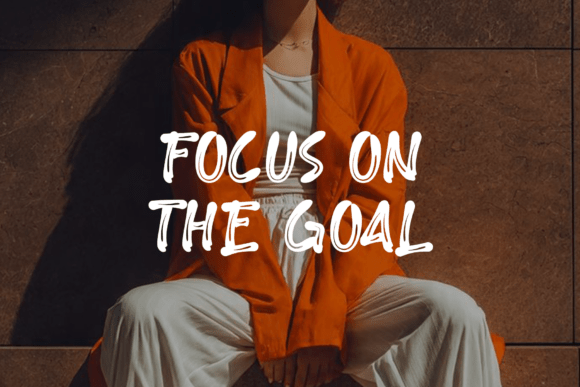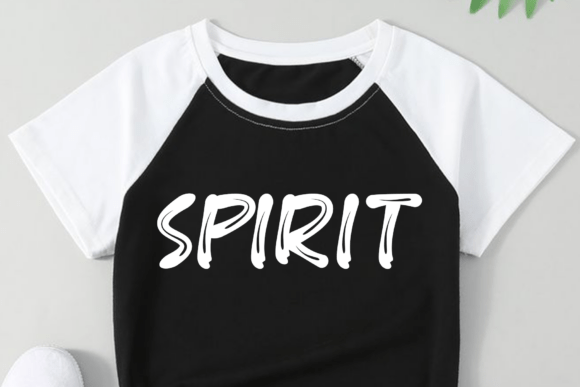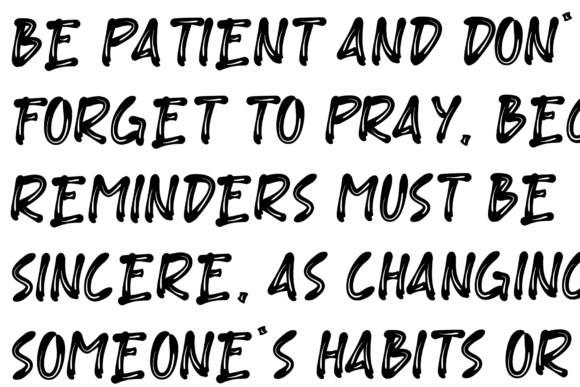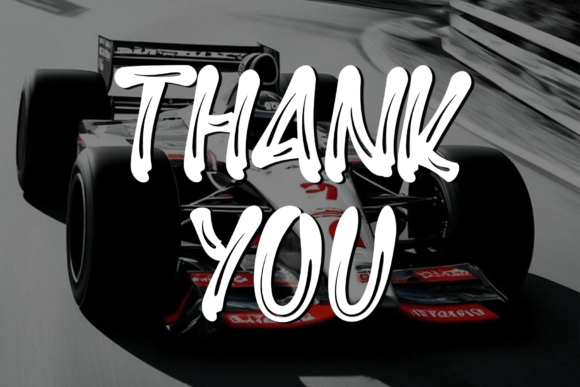
Introduction to Quick Racing Font
Have you ever found yourself pouring over a blank canvas, waiting for the perfect design to materialize? As a designer, I’m sure you’ve experienced that moment of creative frustration, when nothing seems to be working and your project is stuck in limbo. That’s where the right design resource can be a game-changer. Enter the Quick Racing Font, a stunning handwritten script that’s sure to elevate your creative project to the next level.
With its sleek, high-contrast strokes and fluid ligatures, this font is perfect for designers who want to add a touch of sophistication and elegance to their work. Whether you’re creating a dramatic social media header, a luxurious event invitation, or a cinematic book cover, the Quick Racing Font is an exceptional choice. And the best part? It’s available for free download, making it an invaluable resource for designers on a budget.
Key Features of Quick Racing Font
- High-quality design resource ideal for creative projects requiring a bold, energetic feel.
- Unique, custom-designed font featuring a transparent background, allowing for seamless integration into any design.
- Designed with a focus on readability and legibility, making it perfect for use in a variety of applications.
- Unique characteristics include a dynamic, racing-inspired aesthetic and a range of customizable styles.
Honest Review: Quick Racing Font
I recently stumbled upon the Quick Racing Font, and I must say it’s a great addition to any design project. As a designer, I appreciate high-quality fonts that can elevate my creative work.
- High-quality design: The font looks sharp and well-crafted, making it perfect for any project that requires a premium feel.
- Transparent background: This feature is super useful for designers who want to easily integrate the font into their design without worrying about background distractions.
- Limited character set: Unfortunately, the font only includes a limited character set, which may not be ideal for projects that require a wide range of characters.
- Not suitable for complex designs: The font may not be the best choice for complex designs that require a lot of customization and fine-tuning.
Overall, I think the Quick Racing Font is a solid design resource that can add a touch of sophistication to any project. While it has its limitations, it’s a great option for designers who want a high-quality font without breaking the bank.
Tips for Getting the Most Out of Quick Racing Font
Use the Quick Racing Font on a transparent background to create a sense of depth and dimension in your design. Experiment with different font sizes and colors to find the perfect balance for your creative project. You can also use the font in combination with other design resources to create a unique and eye-catching look.
Common Use Cases for Quick Racing Font
The Quick Racing Font is perfect for designers working on projects related to racing, sports, and action. It’s also great for creating titles and headings for travel, adventure, and lifestyle brands. With its high-quality design and free download option, the Quick Racing Font is a valuable design resource for any creative project.
Is the Quick Racing Font a high-quality font?
Yes, the Quick Racing Font is a high-quality font designed to provide clear and readable text. The font features a clean and modern design, with carefully crafted letterforms and attention to detail. The font is also optimized for use at a range of font sizes, making it suitable for use in a variety of creative projects and design applications.